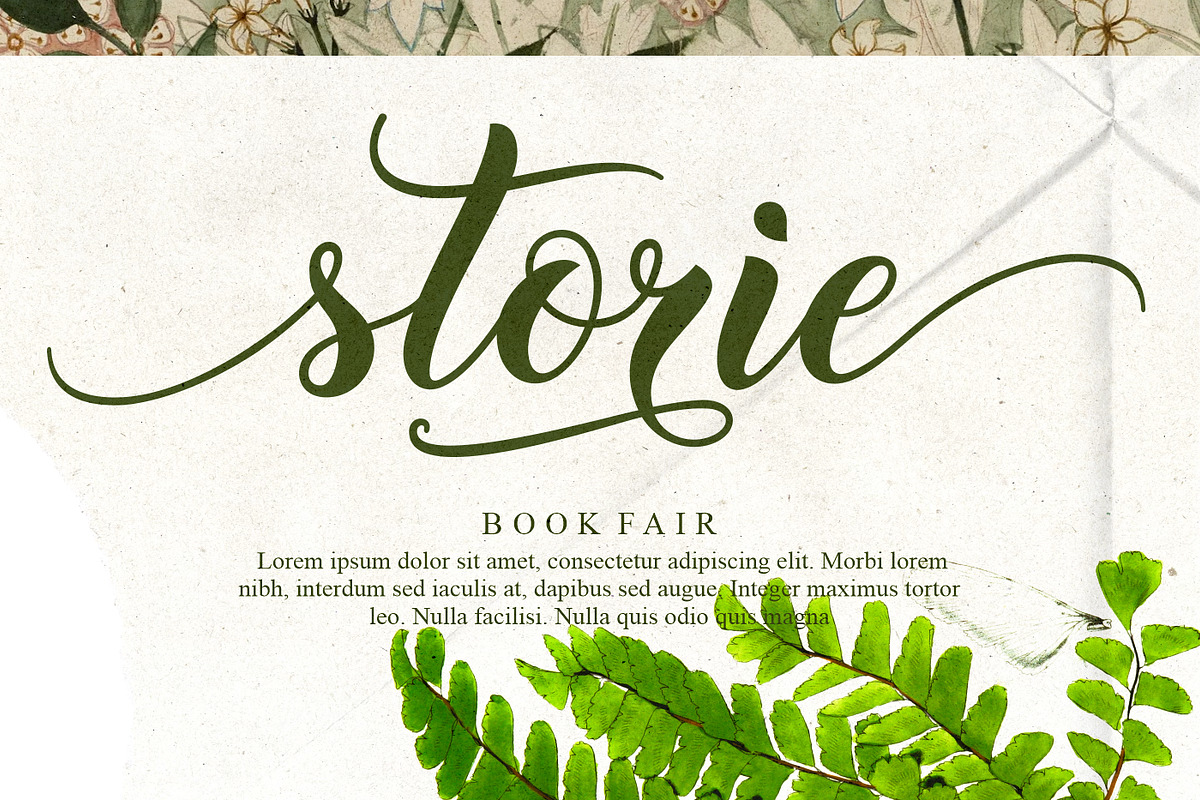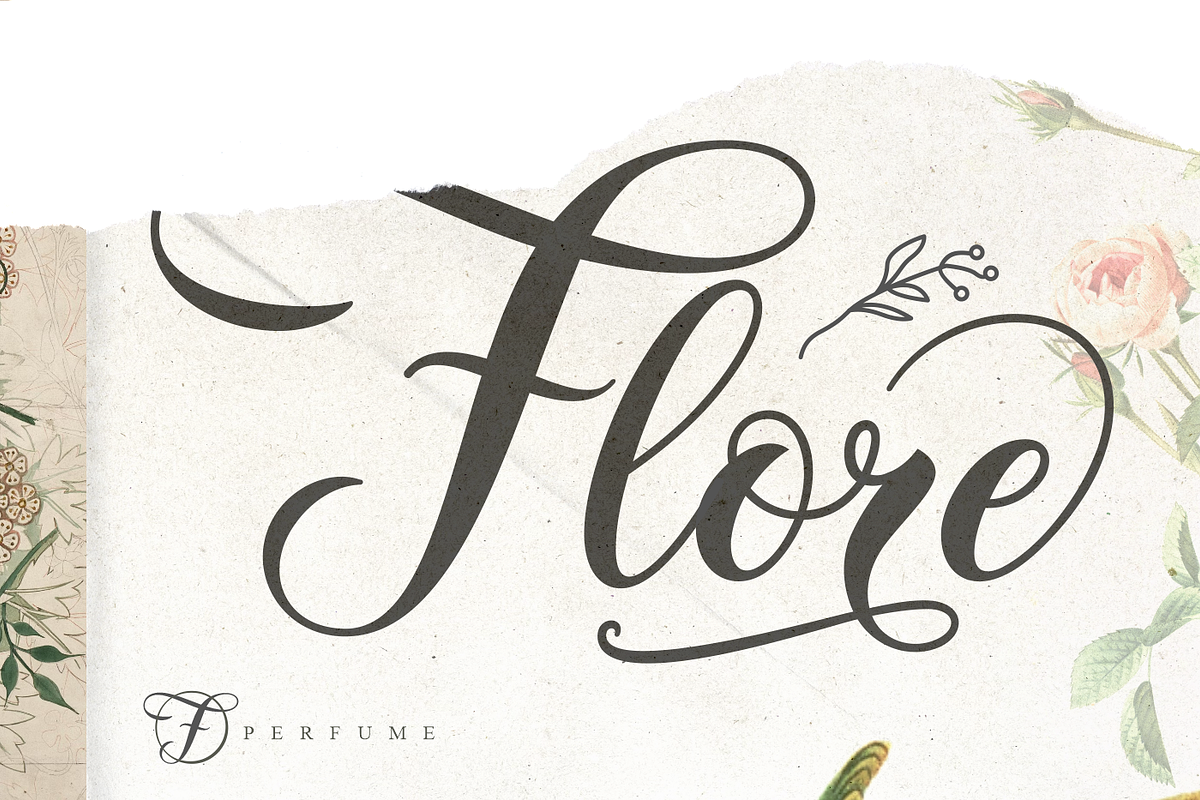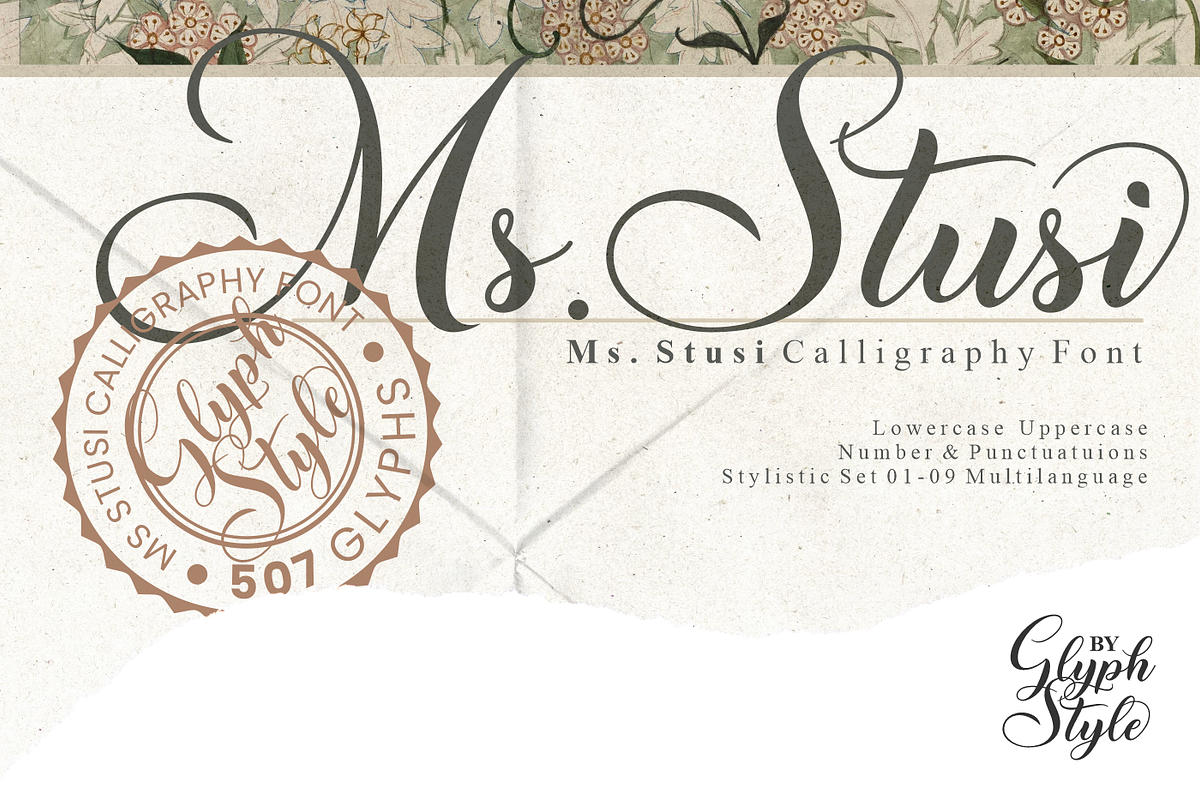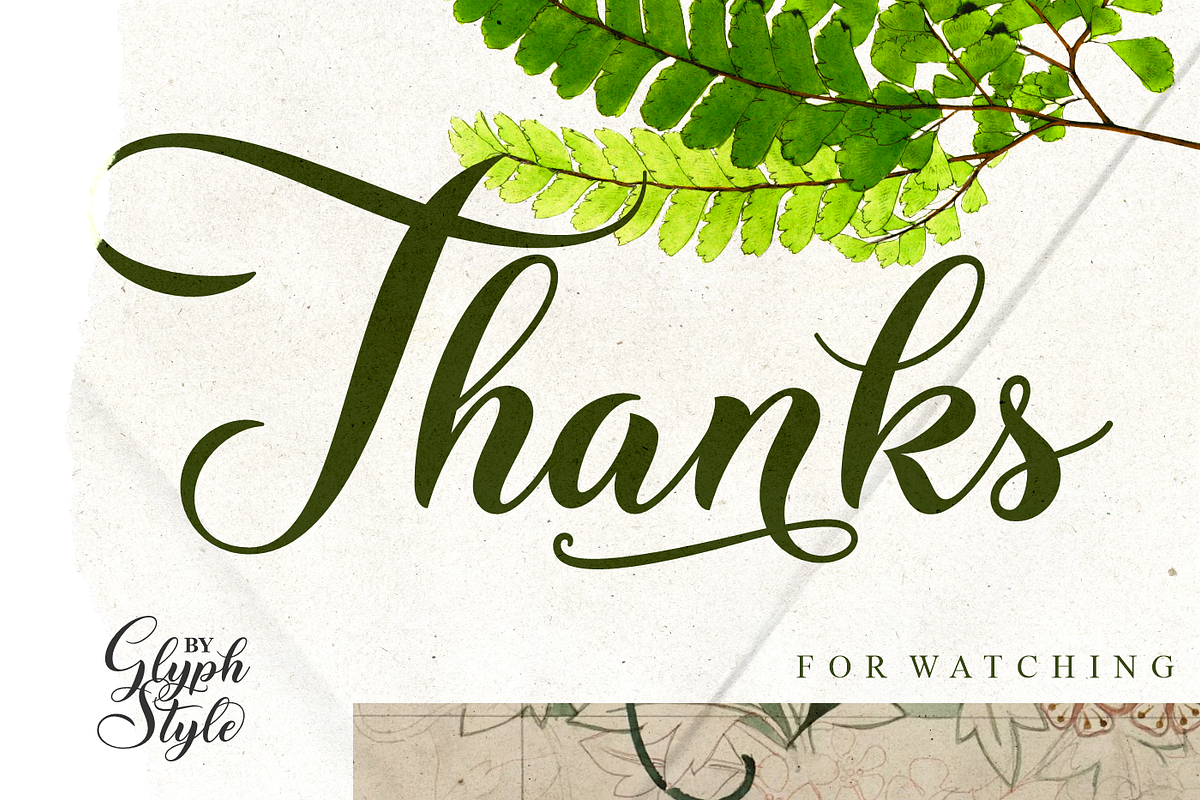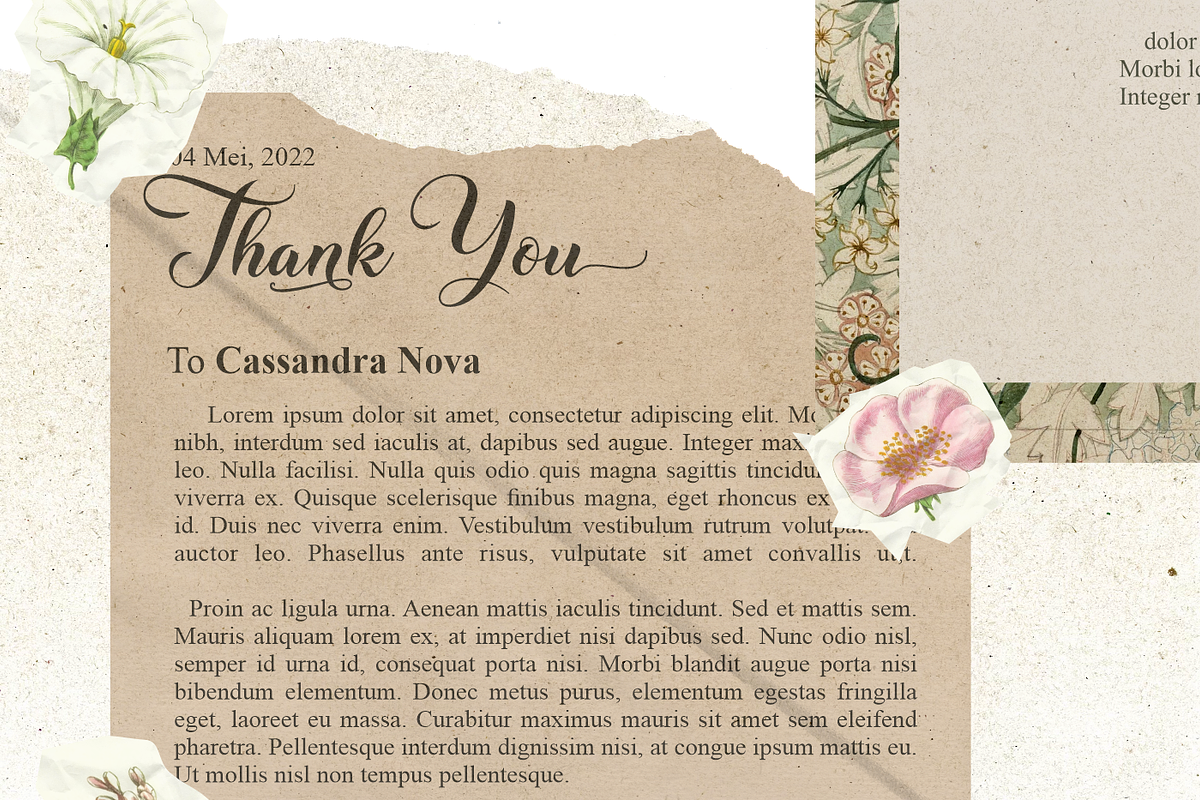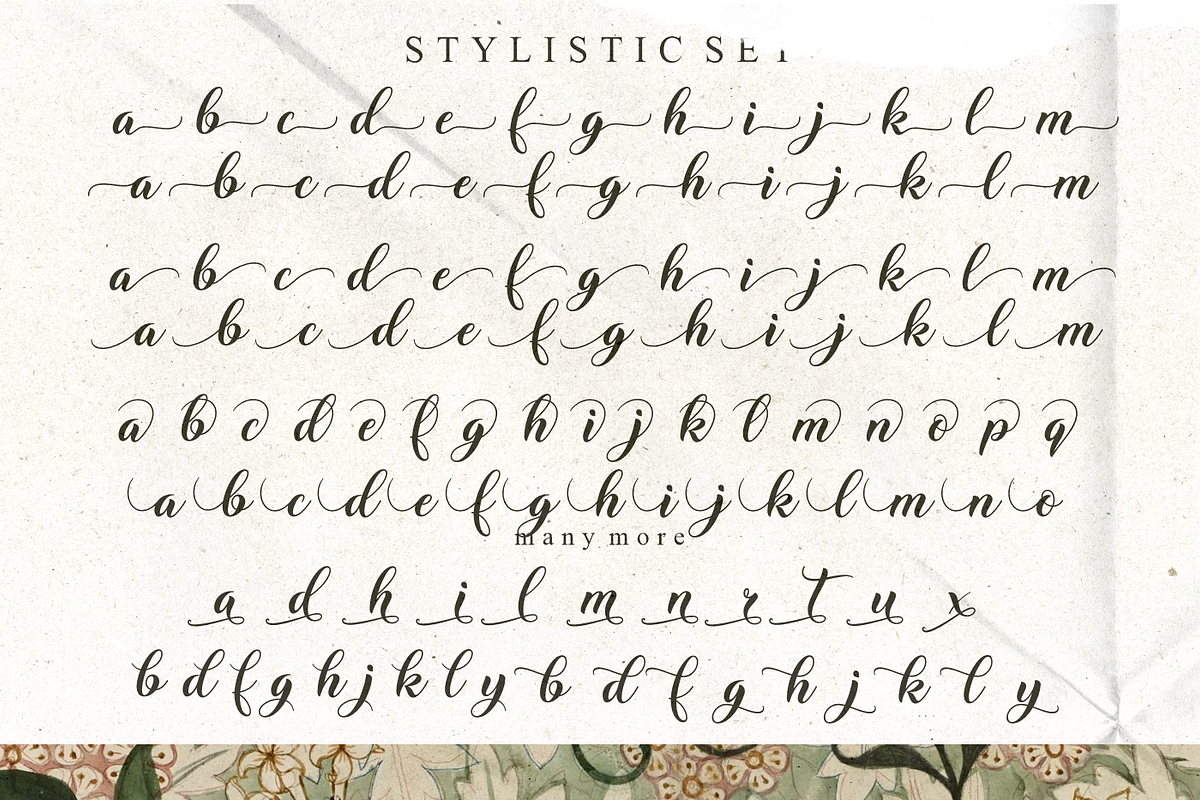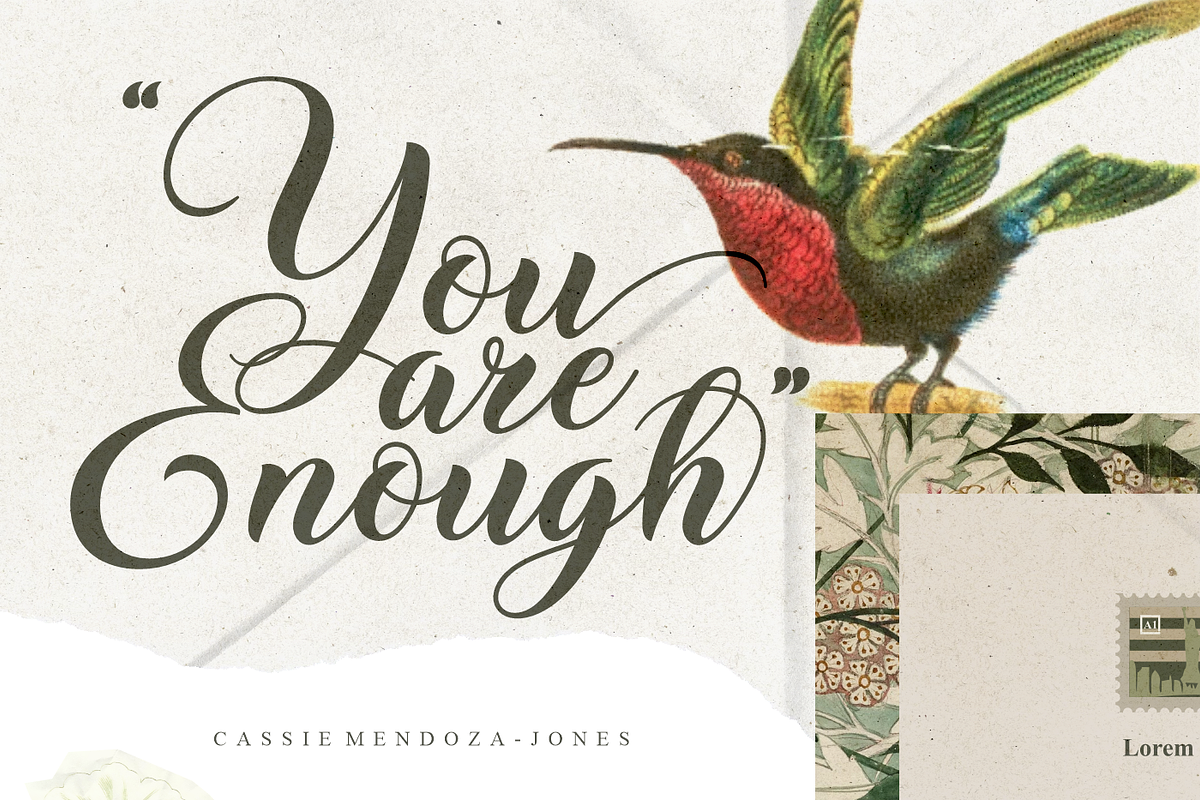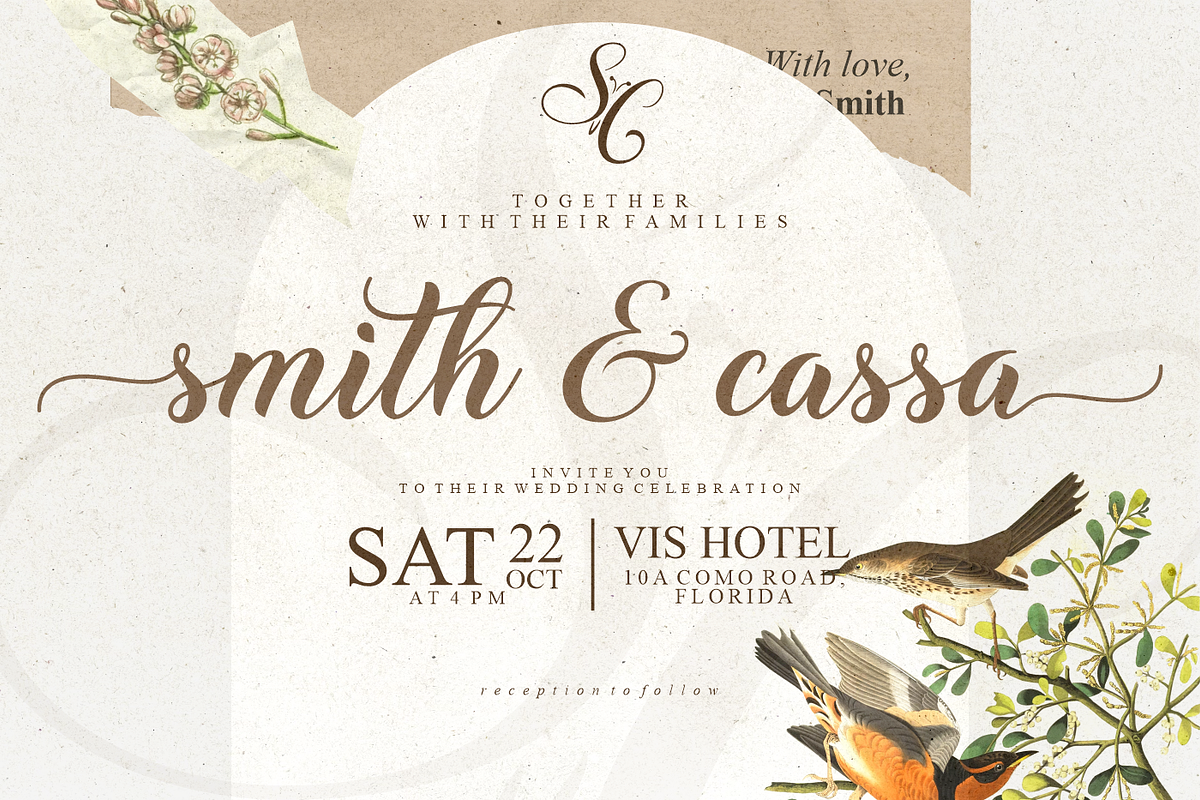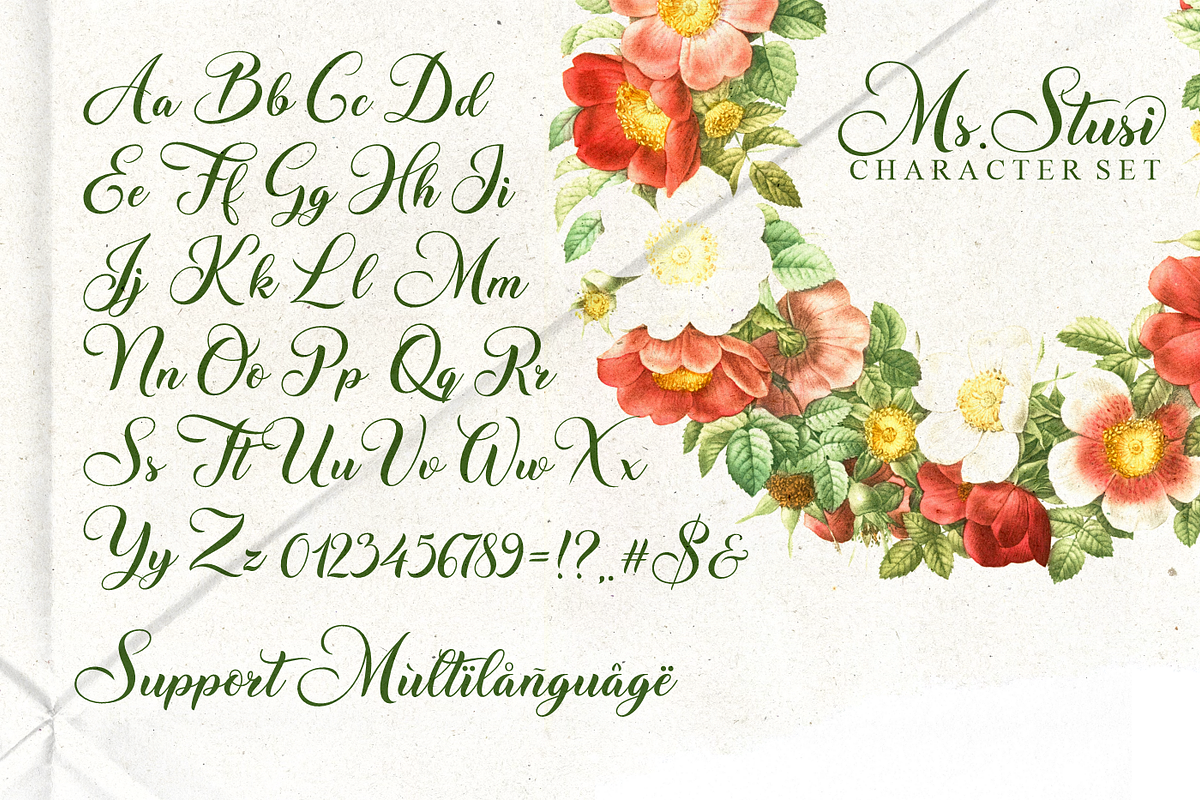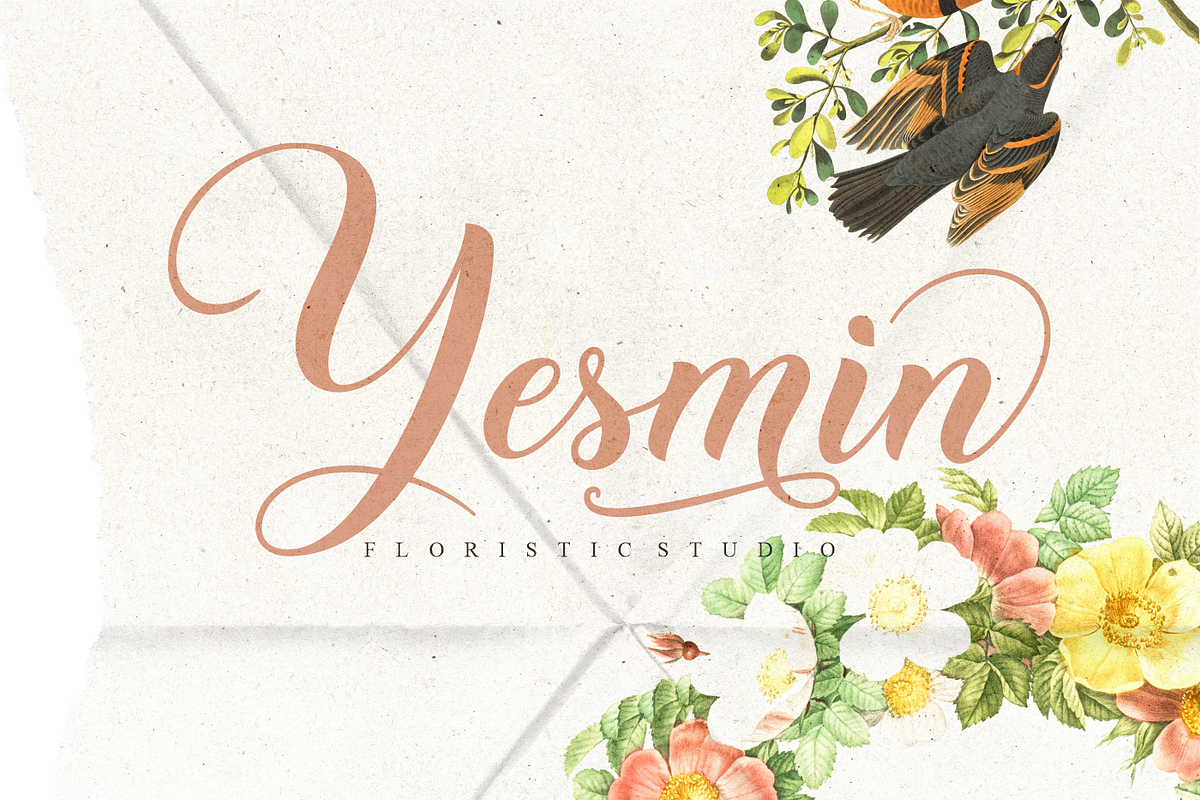
Ms Stusi Calligraphy
Ms Stusi is a calligraphy font with aesthetic curves. It has beautiful curves on each letter, also equipped with a varied stylistic set to support creativity.
Ms Stusi is perfect for branding projects, logos, wedding designs, social media posts, advertisements, product packaging, product designs, labels, photography, watermarks, invitations, stationery, and any project that requires a sense of calligraphy font.
Font feature
Uppercase, Lowercase, Numerals & Punctuations, ss01-08 Multilanguage